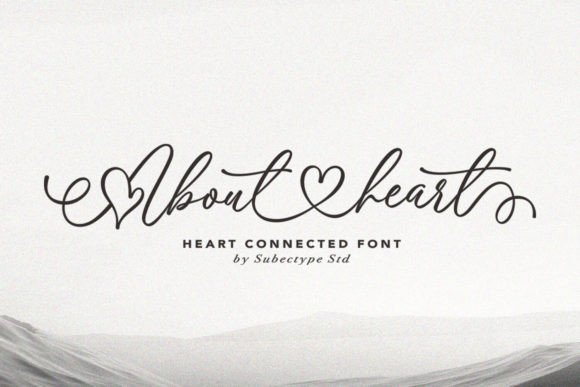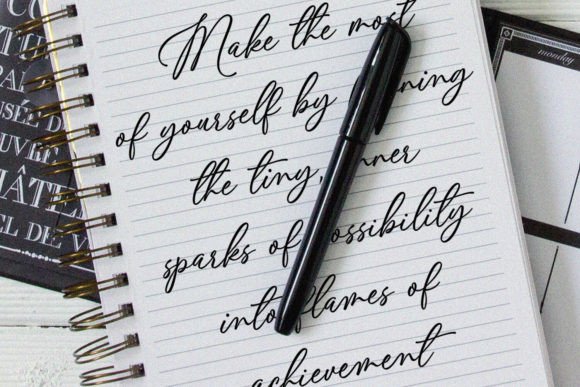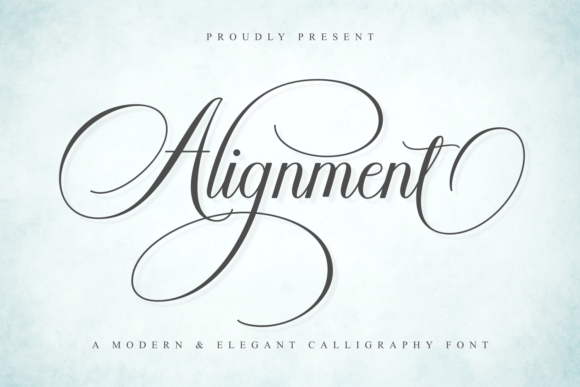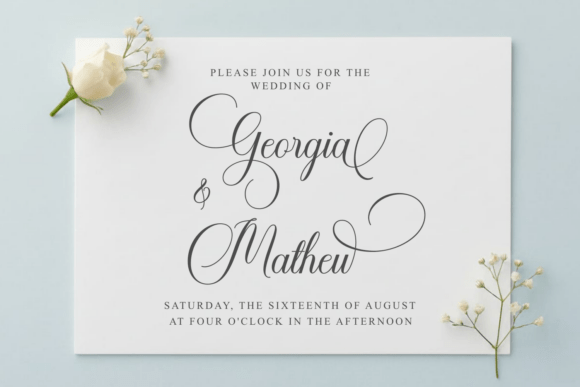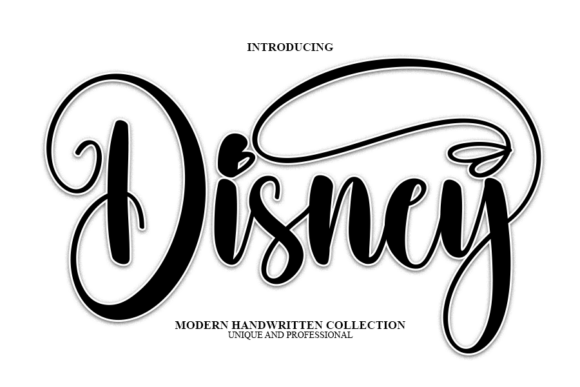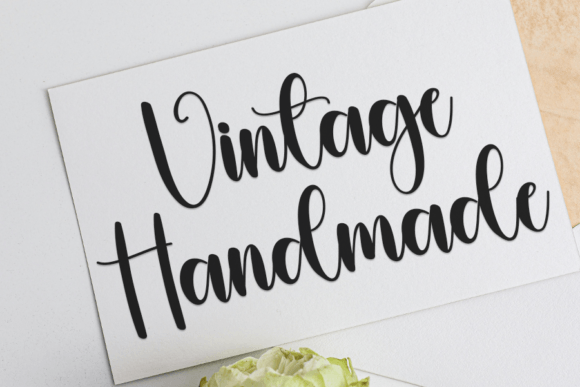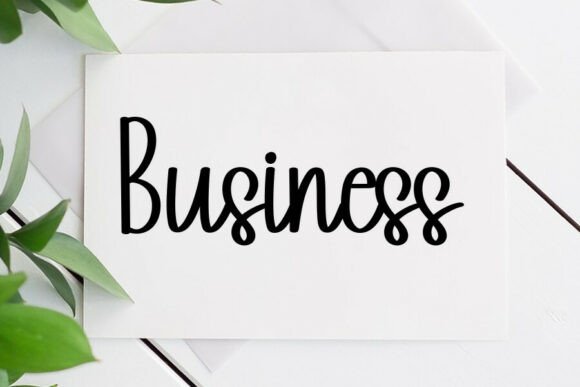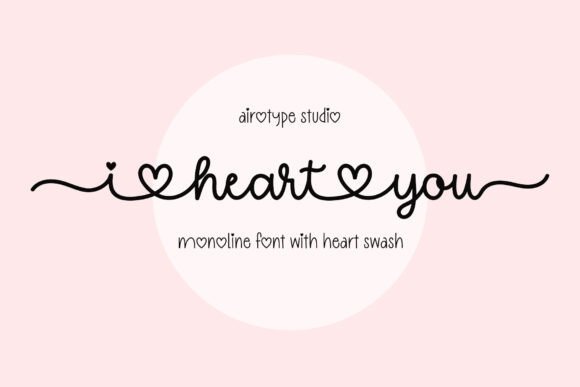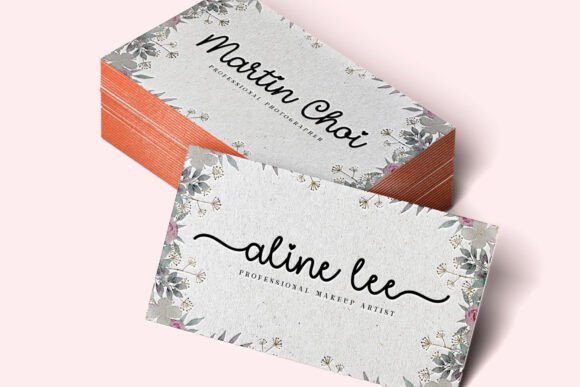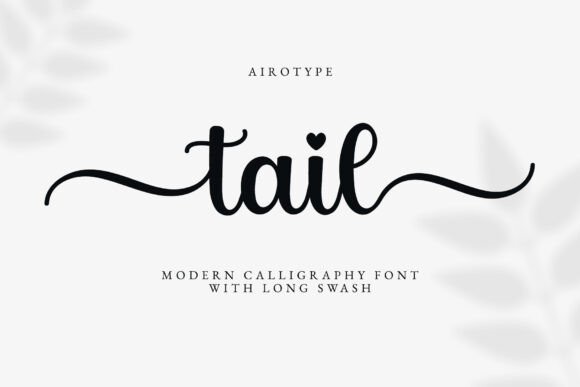
10 Modern Script Fonts for Weddings, Branding, and Beyond
As a designer, I know that the right typography can breathe life into any project. I’ve handpicked these 10 unique Script Fonts to help you add that essential personal, human touch to your work. Whether it’s for branding or invites, these styles ensure your creative designs truly stand out.
1. Simple Handwriting Script Font
I use Simple Handwriting as one of those Script Fonts that instantly adds a natural, human feel to a design. It looks like real handwriting, stays clean and readable, and doesn’t feel overdecorated. I often choose it for branding, social media graphics, Pinterest pins, quotes, signatures, and covers where warmth and authenticity really matter.
2. Simple Handmade Script Font
Simple Handmade Script  Font
I choose Simple Handmade among Script Fonts when I need a light, charming handwritten style with emotional warmth. The letters flow naturally, creating a cozy and elegant look that feels personal rather than polished. It’s a great fit for branding, weddings, greeting cards, fashion projects, and any design that should feel joyful, romantic, and inviting.
3. Cozy Disney Script Font
When I use Cozy Disney, it feels like adding a personal, magical touch to a blank canvas. Among many Script Fonts, this one stands out because it is delicate and authentically handcrafted. I love how the letters flow with a unique, airy rhythm that feels more like a handwritten letter than a digital file.
It is my go-to choice for wedding invitations, cozy food packaging, or titles that need to feel approachable yet elegant. The main advantage is its organic warmth—it stays perfectly readable while keeping that “one-of-a-kind” artisan vibe. If your design needs a soul, this is the font to pick.
4. I Heart You Script Font
When I first used I Heart You, I was charmed by its effortless, playful spirit. Among all the Script Fonts I’ve tried, this one feels the most sincere. It’s a single-line handwritten font that avoids being overly formal, opting instead for a “fun and cute” vibe that instantly puts a smile on your face.
The standout feature for me is the adorable heart swash—it adds a romantic, lovely touch without feeling cluttered. I find it perfect for Valentine’s Day cards, wedding stationery, or even quirky T-shirt designs and stickers. Its biggest advantage is its simplicity; it’s incredibly easy to read but still feels deeply personal and handcrafted.
5. Stylish Alphabet Script Font
I love how Stylish Alphabet instantly softens a design. It’s one of those Script Fonts that feels genuinely expensive and graceful. When I use it for branding or logos, the flowing, feminine strokes create an air of high-end elegance that’s hard to replicate with standard typeset.
It works beautifully for wedding invitations or boutique labels where you want a “hand-inked” look. The advantage is its professional polish; it elevates simple titles into something sophisticated and artistic. It’s my top pick when a project needs to feel both delicate and premium.
6. Vintage Story Script Font
When I use Vintage Story, I feel like I’m holding an old fountain pen. Among many Script Fonts, this one is special because it captures a rustic, “old-world” charm that feels deeply nostalgic. It’s not just a typeface; it’s a storyteller. I love the authentic texture it brings to wedding invitations and personal signatures.
The real beauty lies in its ligatures and alternates, which prevent it from looking like a repetitive digital font. I find it perfect for love letters or classic logos where you need that “timeless” look. Its biggest advantage is its organic, imperfect flow—it adds a layer of history and soul to any design project effortlessly.
7. Tail Script Font
I’m always looking for that one detail that makes a design pop, and for me, it’s the Tail Script Font. Among the various Script Fonts available, this modern calligraphy style radiates a unique blend of love and beauty. What I truly adore are those elegant tail swashes at the start and end of letters; they add a layer of charm that feels both sophisticated and intentional.
I find it’s the perfect choice for “Save the Date” cards, farmhouse-style décor, or even custom t-shirts where you want a clean yet “boutique” look. The biggest advantage here is the balance—it’s simple enough to stay modern but decorative enough to feel high-end. It’s an absolute gem for anyone who wants their typography to feel light, airy, and effortlessly graceful.
8. About Heart Script Font
Whenever I need a design to feel truly connected, I reach for About Heart. This chic calligraphy style is one of those Script Fonts that just feels effortless. Its signature feature is the “Heart connected” style, which laces words together with a literal touch of love. It’s incredibly distinct and has a timeless quality that never feels overdone.
I love using it for personal journals, wedding stationery, or any project that needs to feel like a heartfelt “thank you.” The main advantage is how it turns simple text into a spectacular, flowing piece of art. It’s my top recommendation when you want your designs to radiate warmth and a genuine, lovely character.
9. Alignment Script Font
I personally find Alignment to be one of the most sophisticated Script Fonts for luxury projects. It’s a modern calligraphy style that strikes a perfect balance between flowing, beautiful curves and clean readability. When I use it, the smooth handwritten strokes and elegant swashes immediately give the design a professional, high-end look.
It is my favorite choice for wedding invitations, fashion branding, or luxury packaging where you need a romantic yet stylish feel. The biggest advantage is its PUA encoding, which lets me access those gorgeous extra swashes with ease. It’s a truly classy option that elevates any creative project to a more feminine and polished level.
10. Wild Flower Honey Duo Script Font
When I want a design to feel naturally balanced without the stress of pairing, I always turn to Honey Wildflower. It is a joyful duo that blends a tall, friendly sans-serif with a smooth, flowing script. This combination creates a sweet, modern personality that I find incredibly uplifting for any project.
Among various Script Fonts, this duo stands out because it provides the perfect contrast between a bright, approachable vibe and a soft, hand-lettered touch. I love using it for DIY projects, branding, and social media quotes where you need a bit of warmth. The biggest advantage is its versatility—it feels organic and makes your words bloom with a unique, professional harmony.
Final Thoughts
Well, we’ve explored some truly magical options together! As a designer, I believe choosing the right Script Fonts is about finding a voice that resonates with your vision. Whether you need the rustic soul of a vintage letter or the chic polish of modern calligraphy, I hope this list helps your next project feel more personal, authentic, and alive.